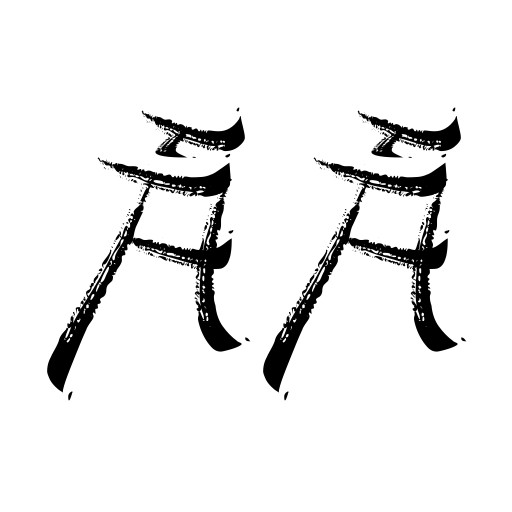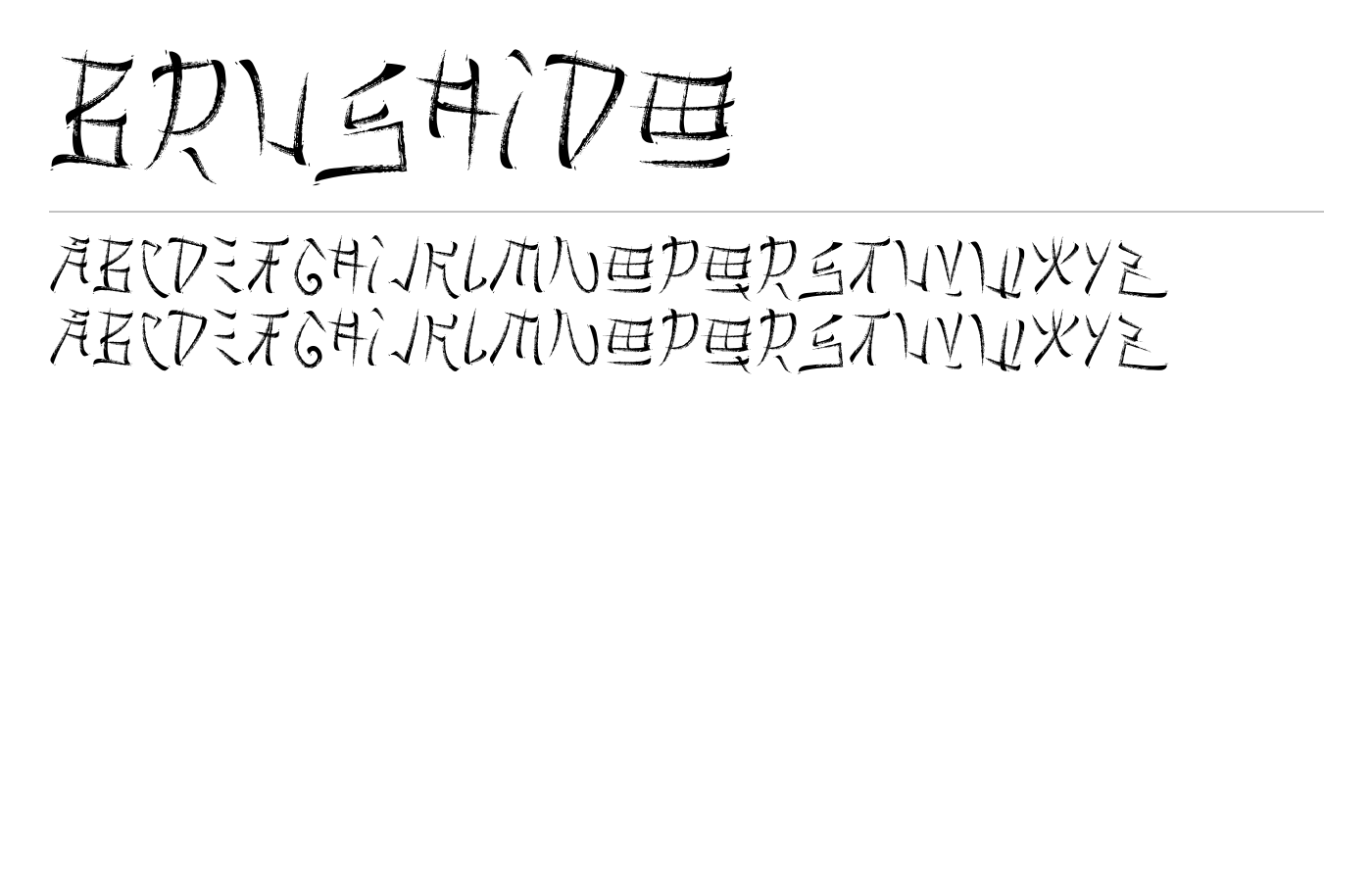
Brushido is an expressive, brush-style display font with a hand-painted, textured look. Its tall, narrow letterforms and sharp, dynamic strokes give it an edgy, artistic vibe, perfect for creative and bold branding, posters, and eye-catching headlines. This font brings a raw, energetic feel that works well in designs seeking a dramatic, handcrafted touch.
Brushido Font
About Brushido Font
| Font family | Brushido Font |
| Designer | Roland Hüse |